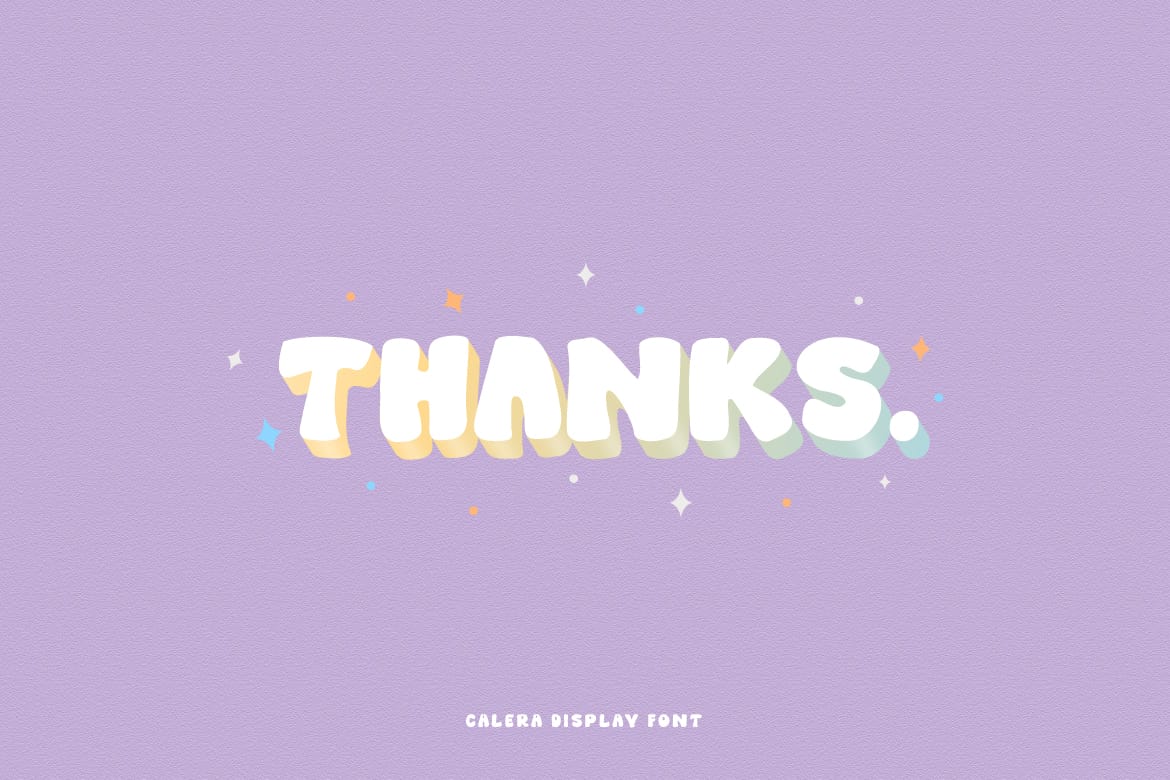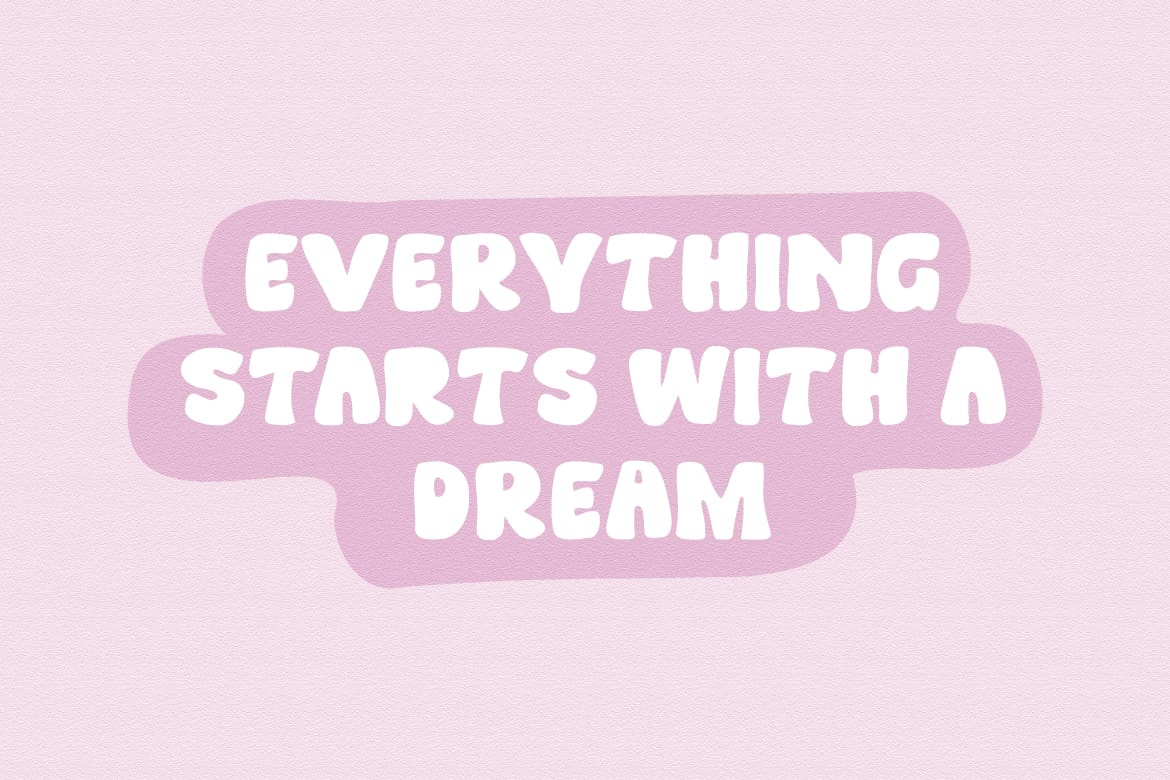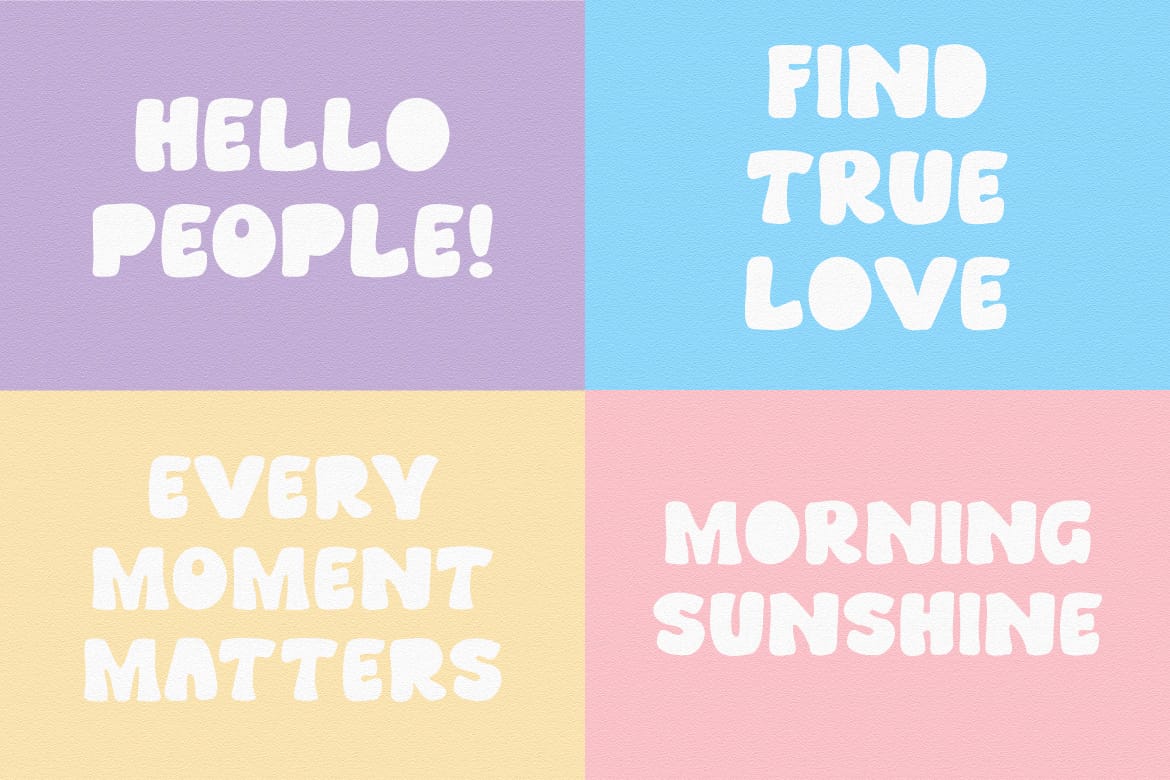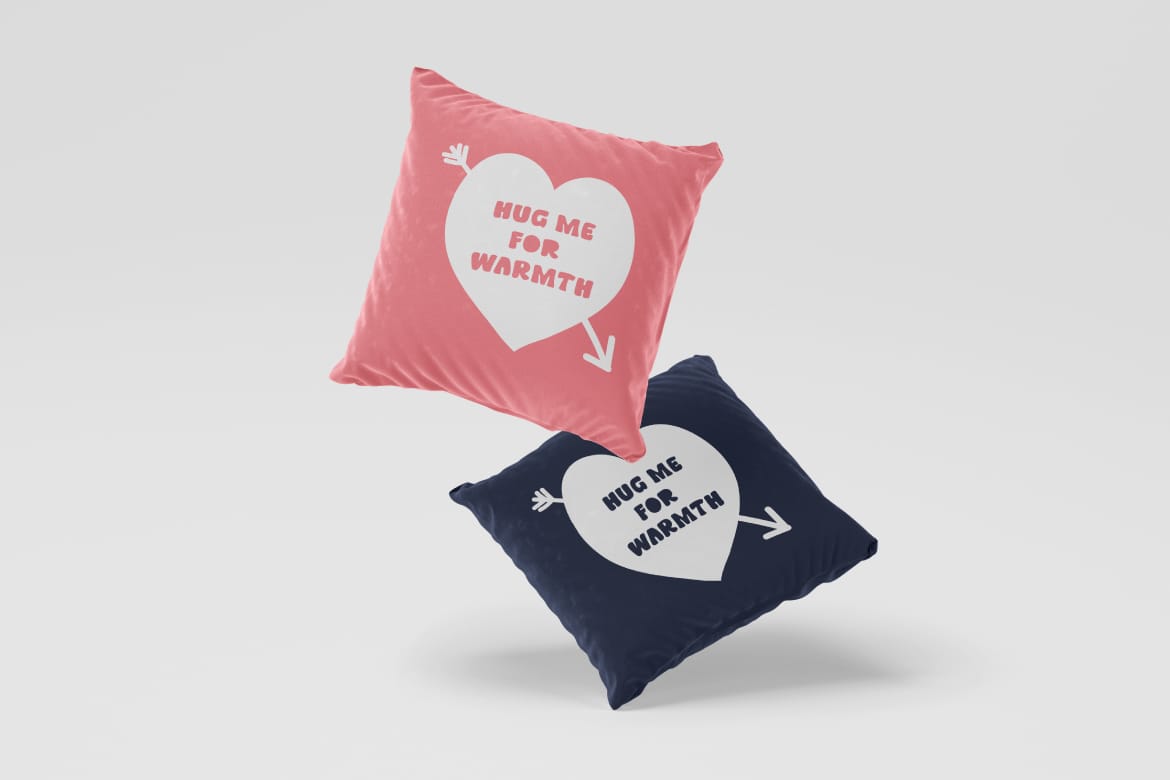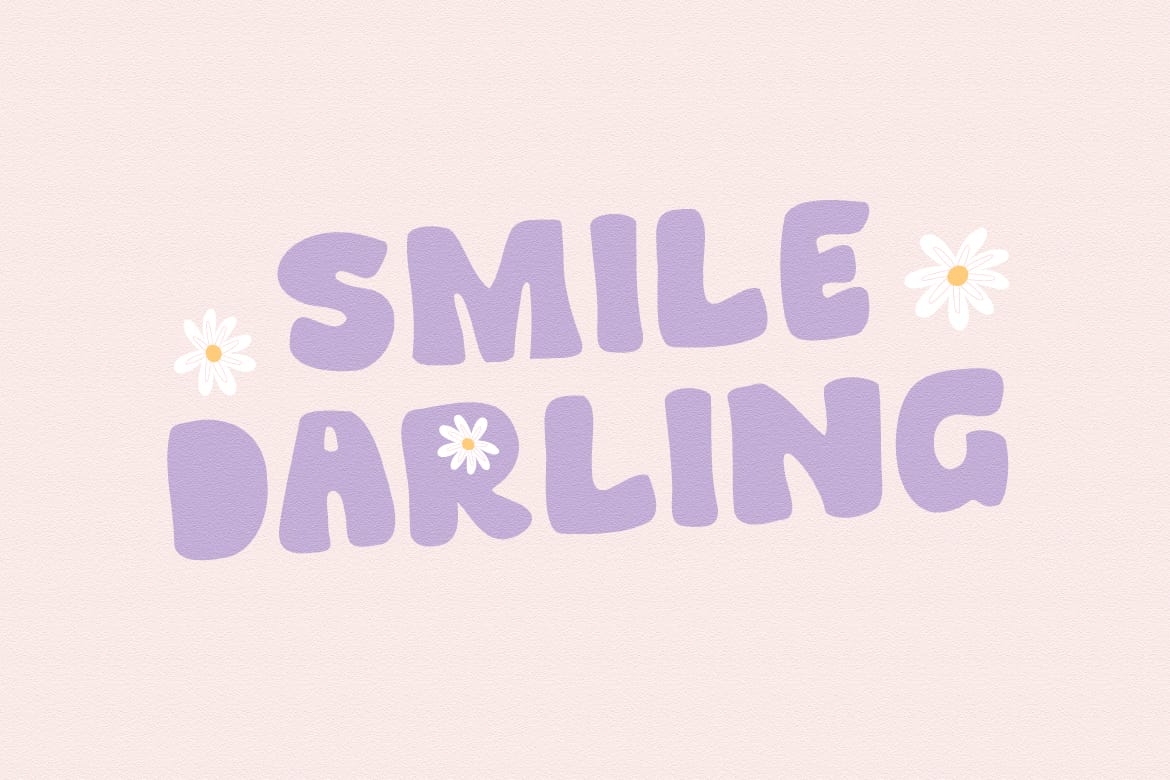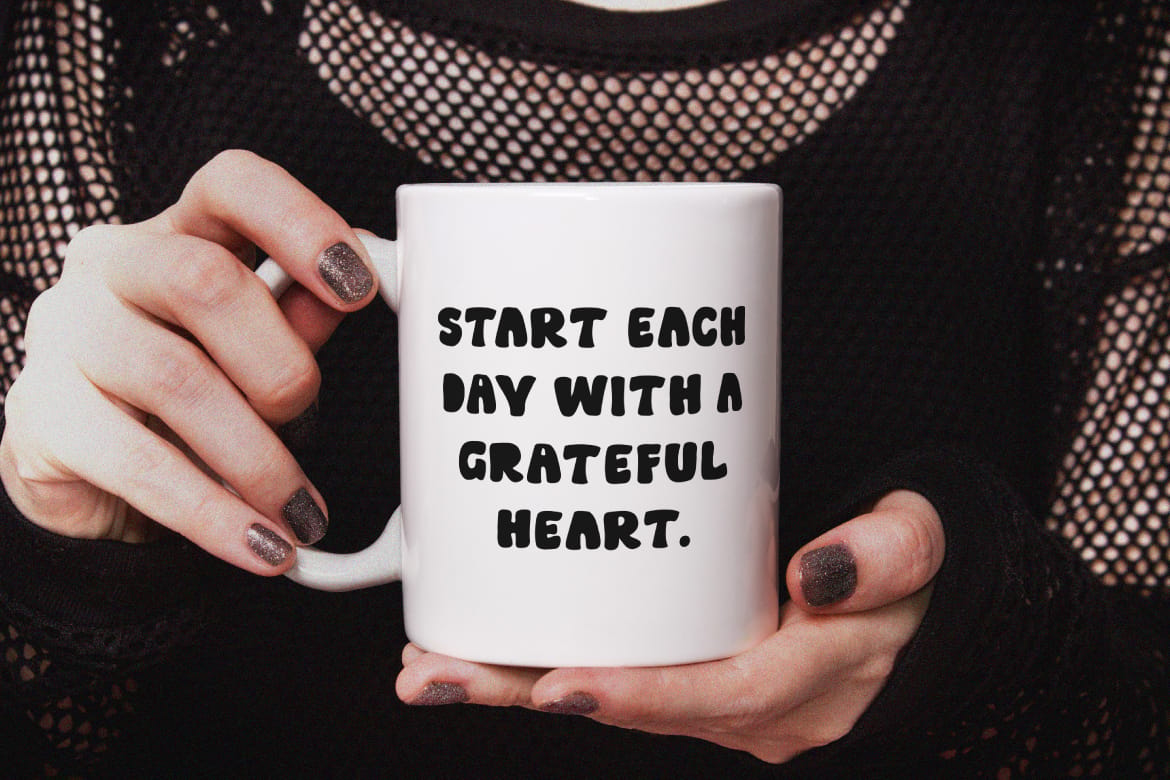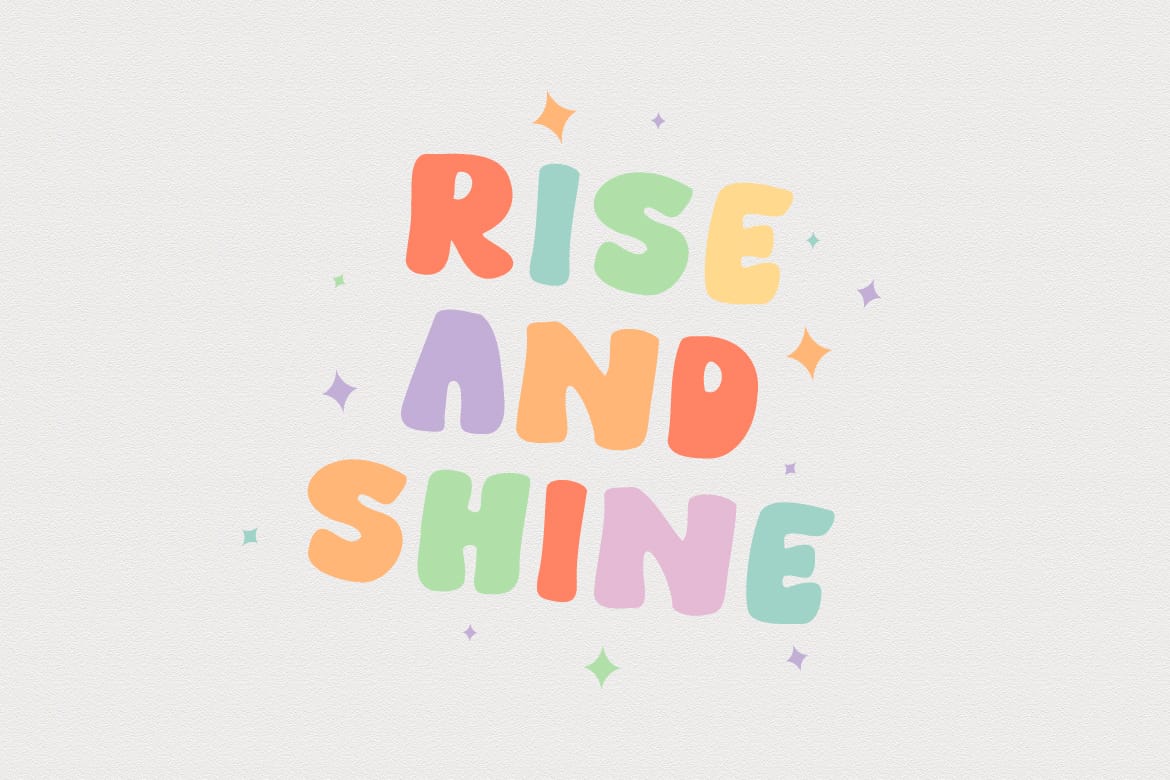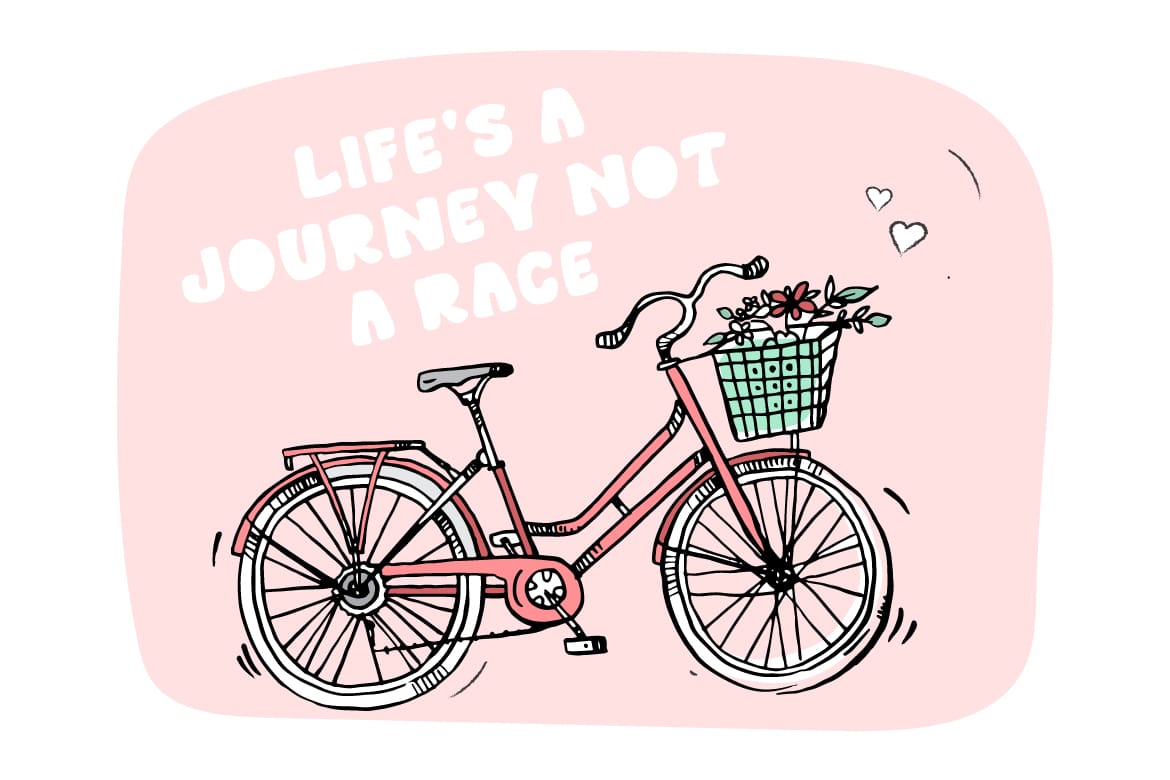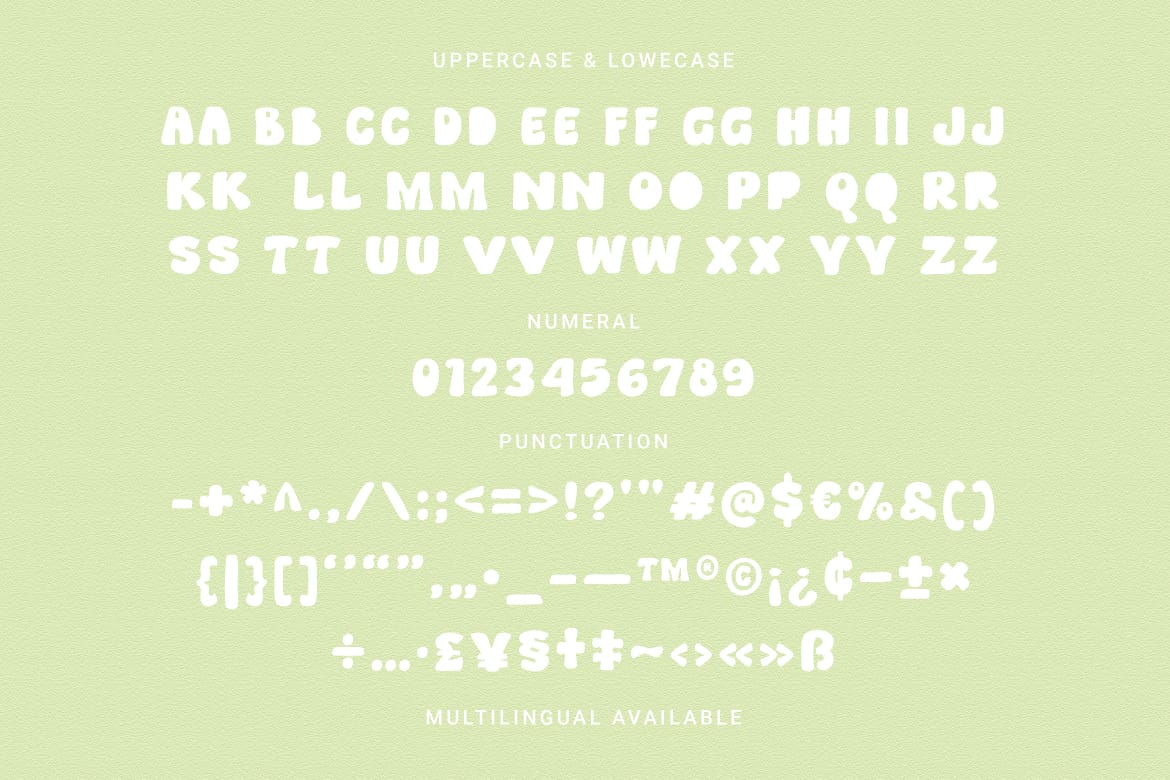
"Calera Display" is a hand-drawn font. Funny, unique and fun. This font is all uppercase, but in lowercase letters there are closed counters such as the letters a, b, d and others. This makes every word you type unique.
Suitable for design projects such as children's book covers, social media posts, logos and branding.
Features: Uppercase, Lowercase, Numeral, Punctuation & Multilingual.